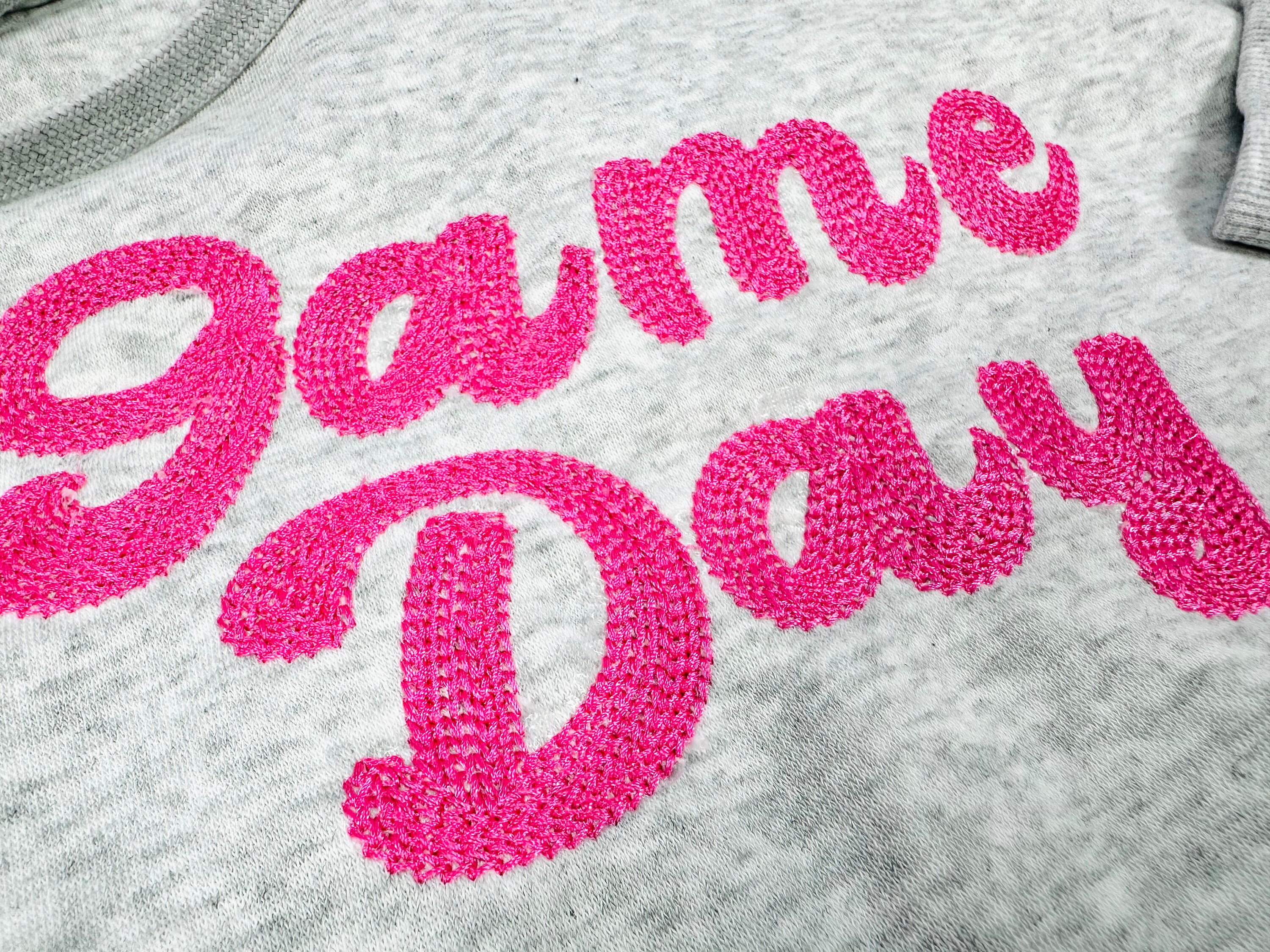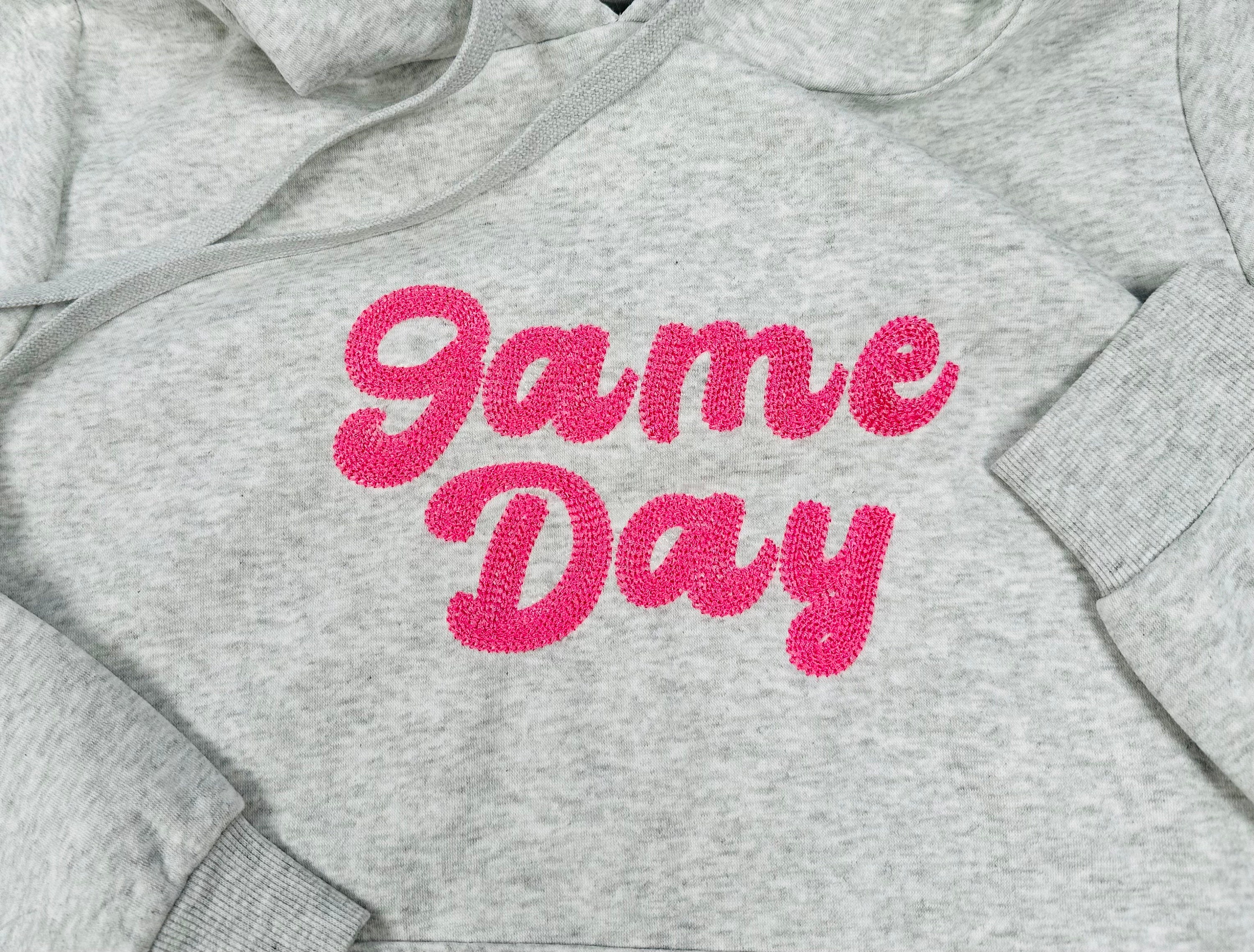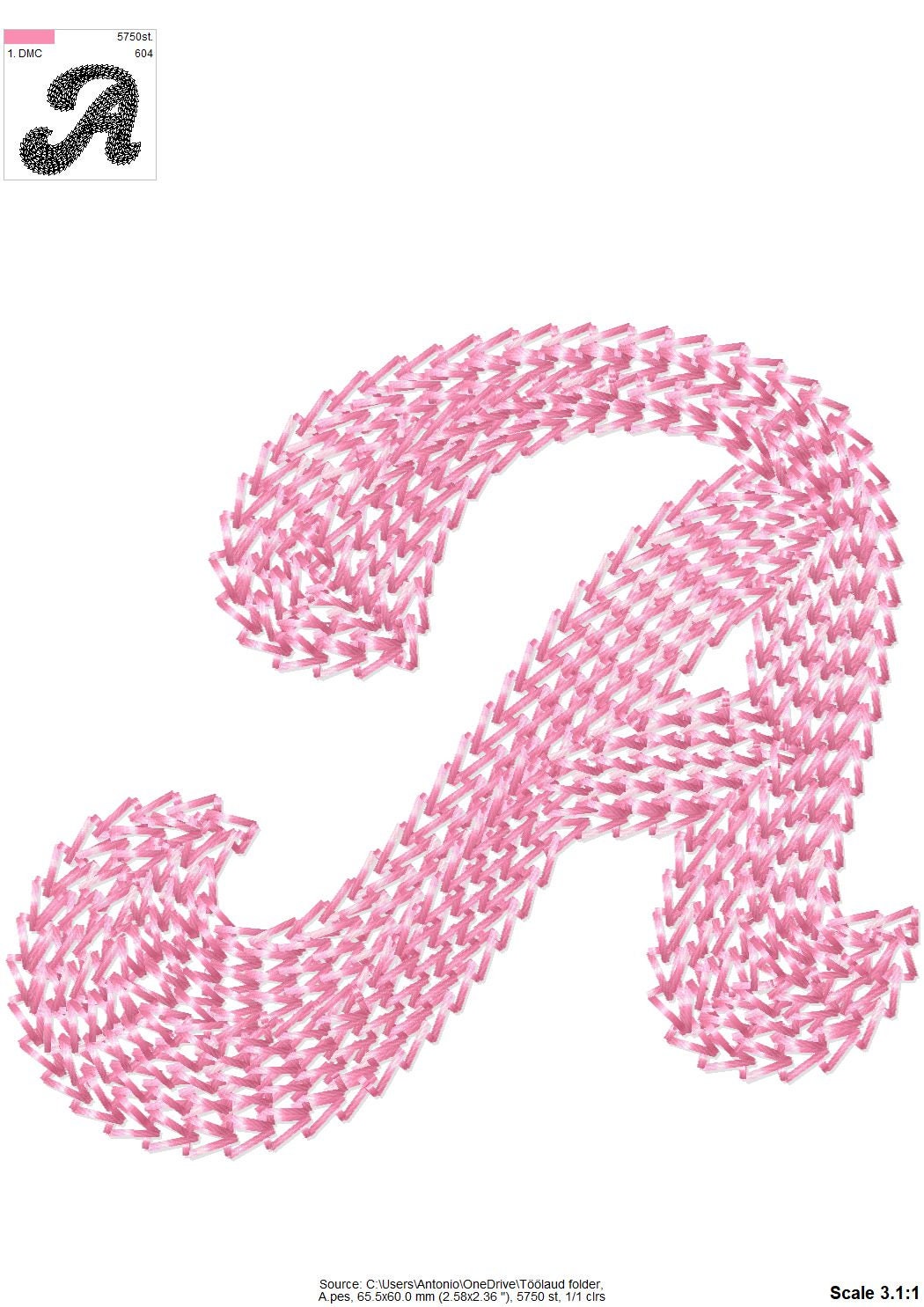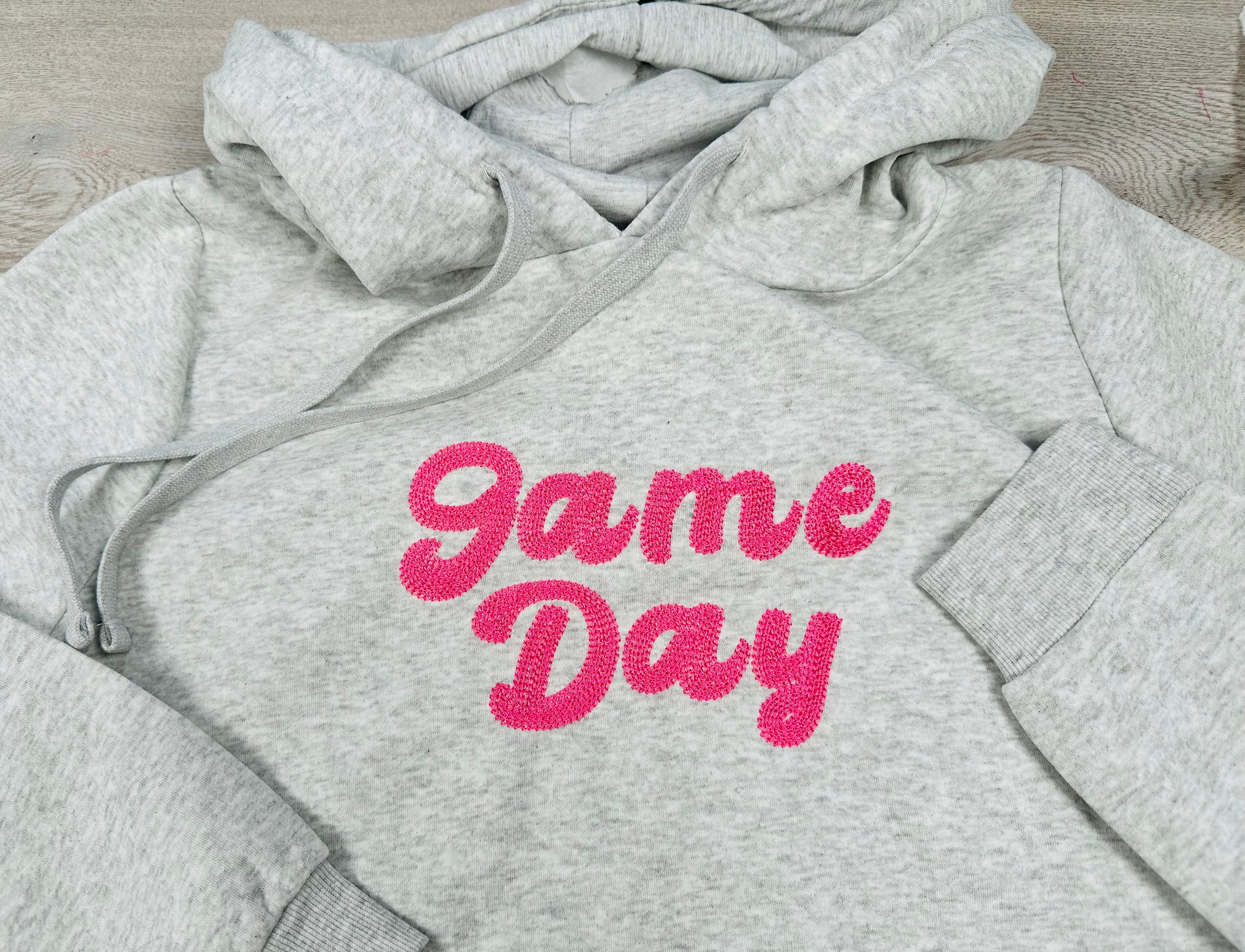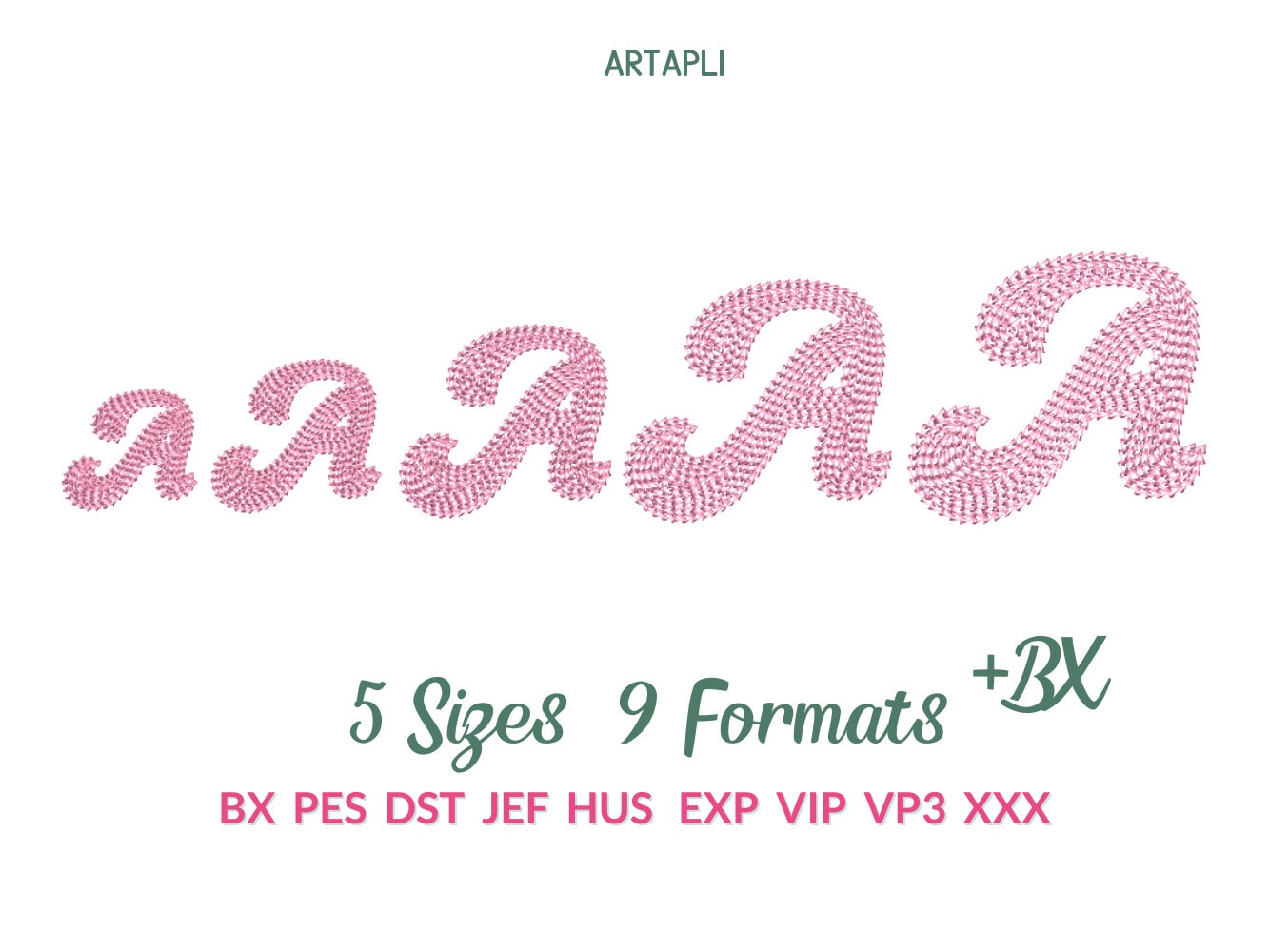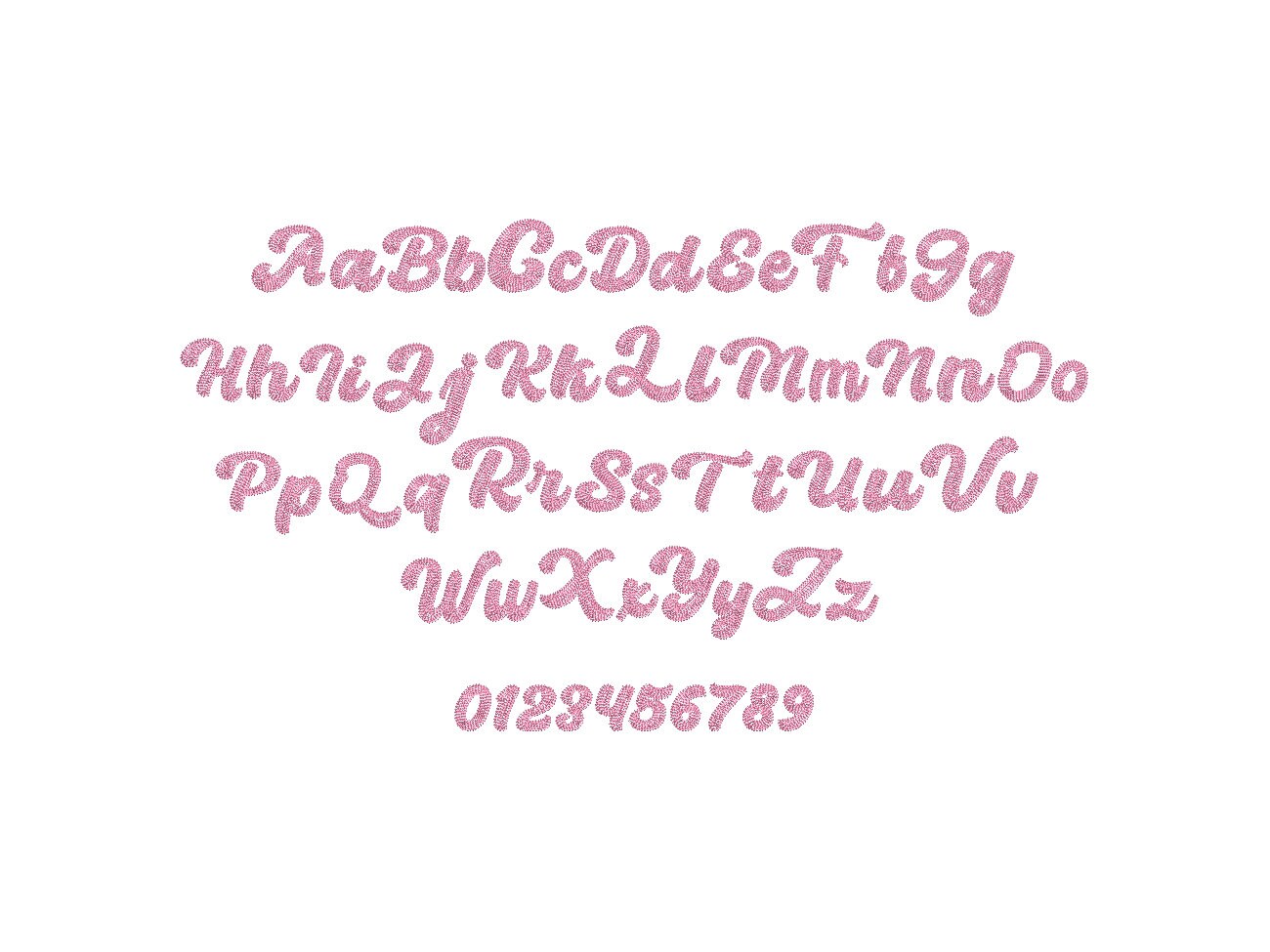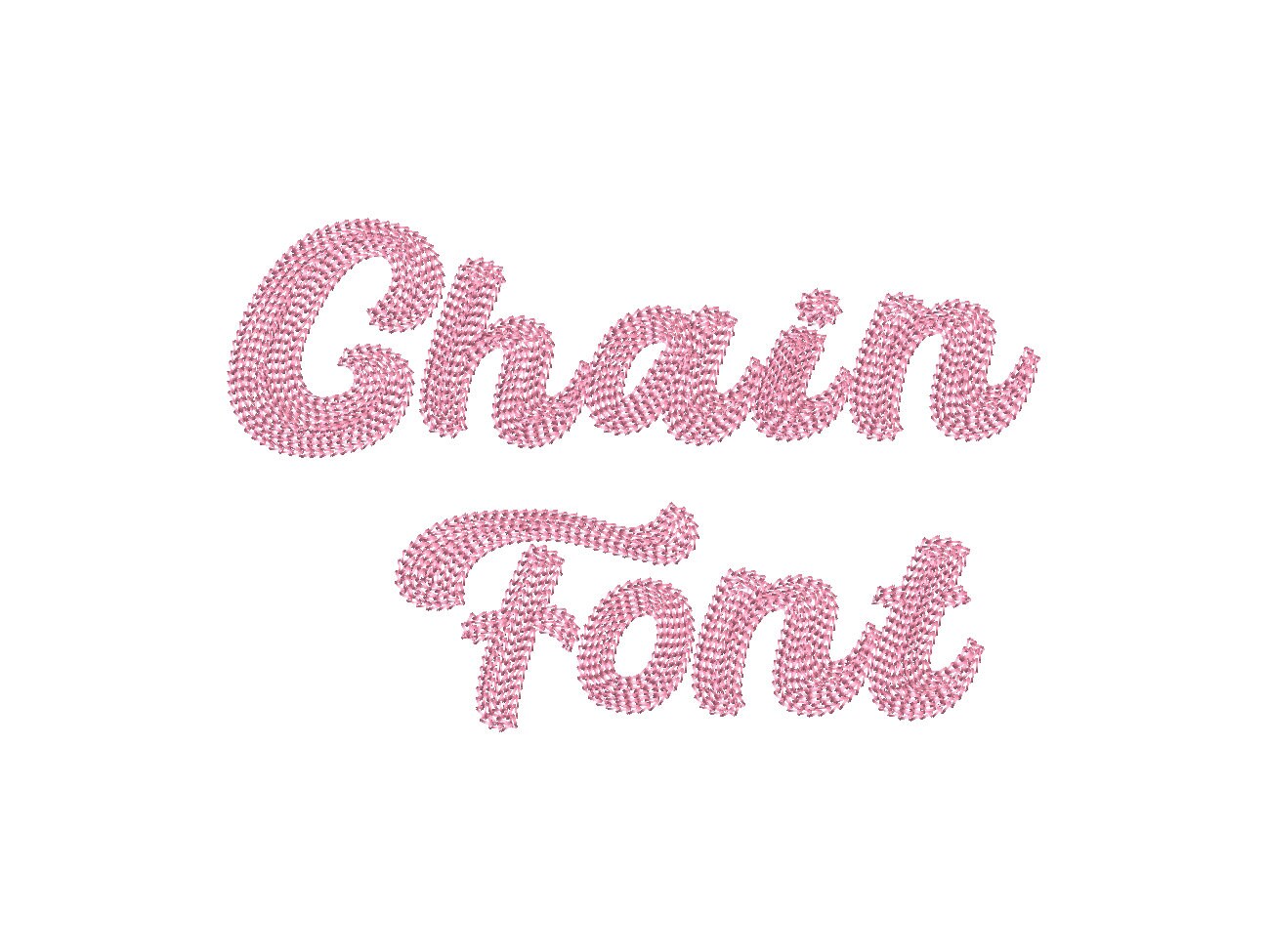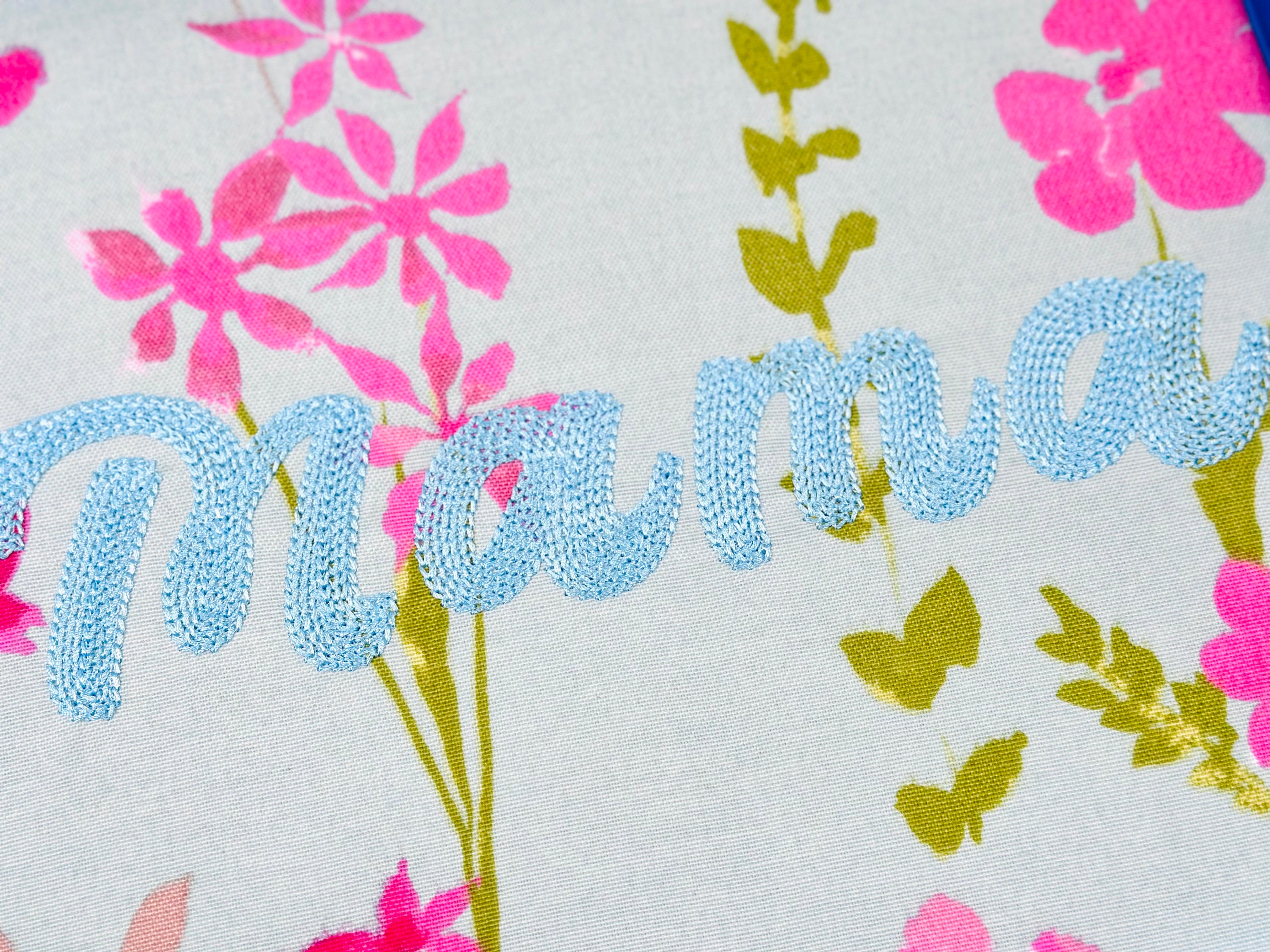
Cursive Chain Font hand stitch effect machine embroidery designs textured alphabet letters chain fill monogram script 1.5 up to 3.3 inch +BX
The whole alphabet uppercase and lowercase Aa-Zz, and numbers 0-9.